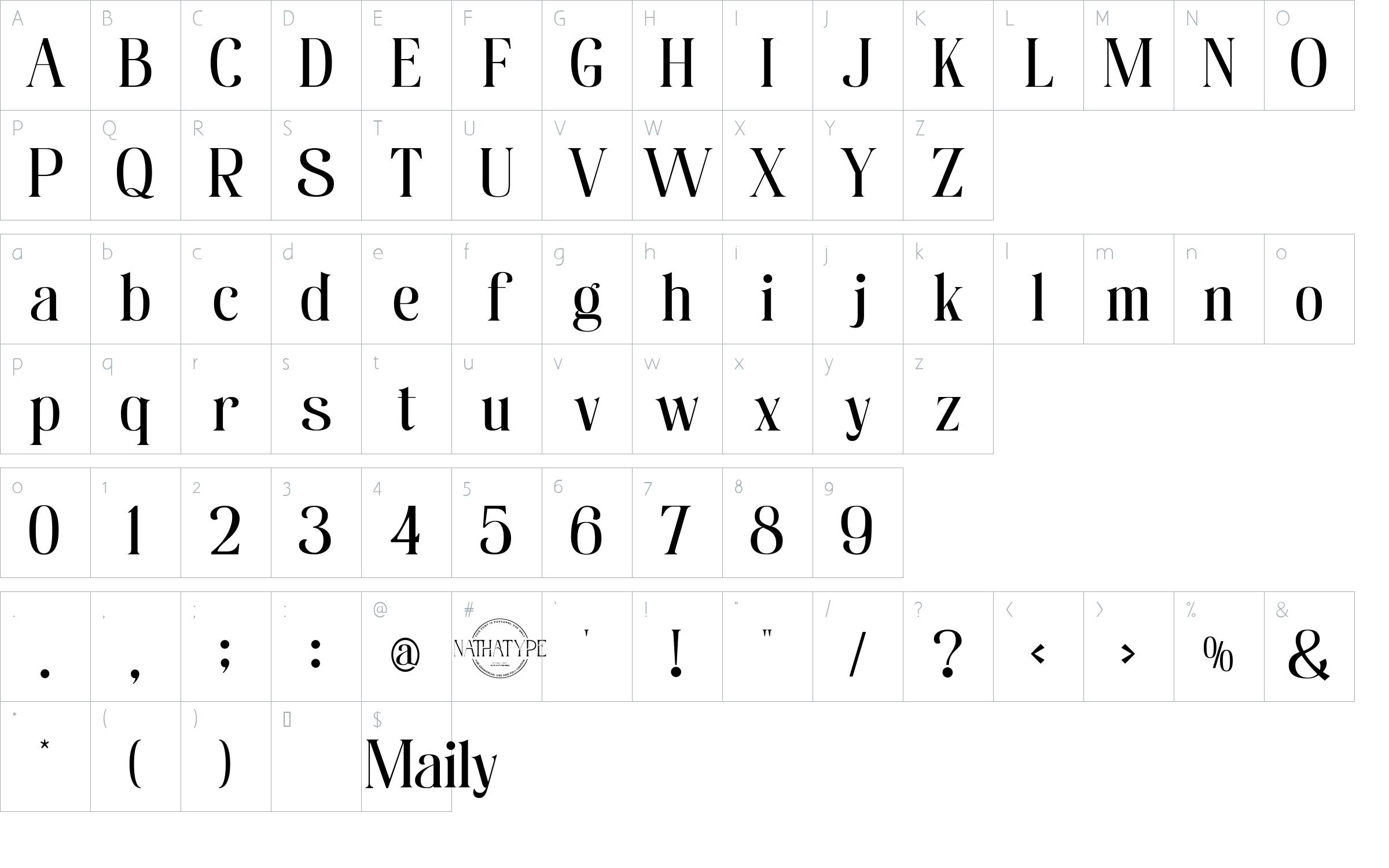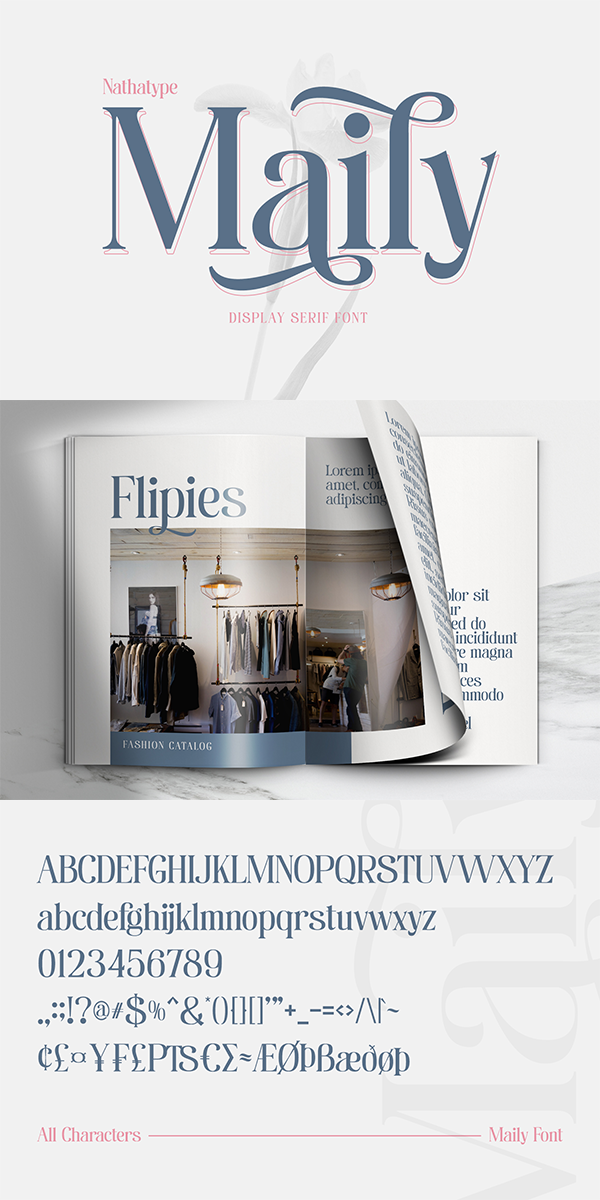
Maily Font
Maily is a display serif font to provide efficient quality, consistency and performance. It shows light, expressive, moving nuances in balanced function and creativity. The font’s main character is the hooks on each letters’ edges like other serif fonts.
• Stylistic Sets